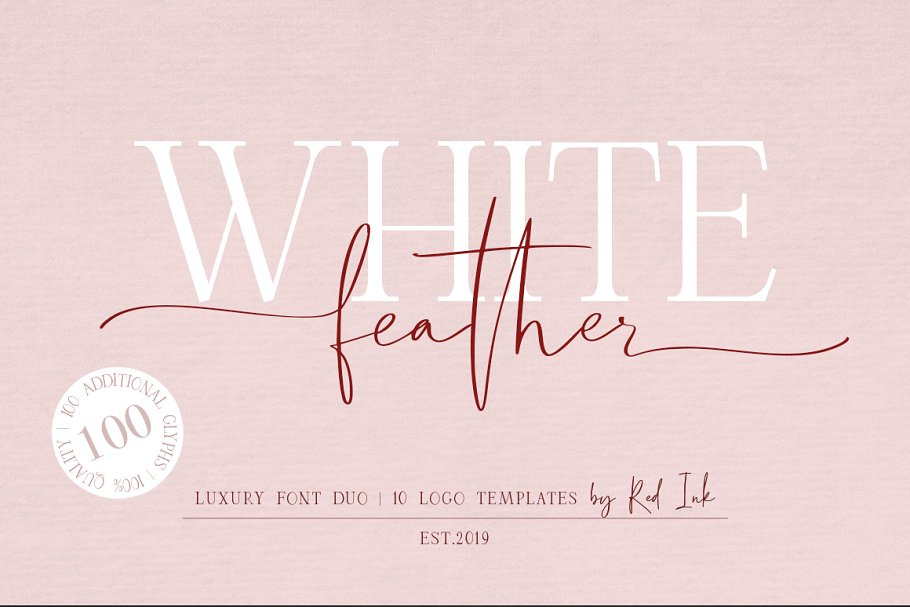
White Feather Font
White Feather Font is perfect for spiritual wellness centers, peaceful meditation branding, angelic beauty campaigns, ethereal fashion designs, serene spa materials, pure lifestyle marketing, heavenly celebration invitations, and tranquil mindfulness projects.
What makes White Feather Font exciting is its ethereally pure character that captures the gentle grace and spiritual lightness of angel wings through delicately crafted letterforms that seem to float with divine serenity and peaceful elegance. The font features soft, flowing shapes with feather-like details that evoke the weightless beauty and pure innocence found in nature's most graceful symbols of peace and spiritual connection. Its angelic aesthetic and pure authenticity make it perfect for brands that want to communicate serenity, spiritual purity, and the kind of gentle peace that lifts the soul while creating memorable experiences that celebrate the beauty of spiritual tranquility and inner peace.
White Feather Font family includes various ethereal weights such as Ultra Light, Light, Regular, and Medium variations, often featuring angel-inspired alternates and peaceful decorative elements. The family may include spiritual symbols, celestial ornaments, and gentle ligatures that enhance the font's pure aesthetic, providing designers with comprehensive options for creating serene typographic compositions that honor spiritual wellness and peaceful living.